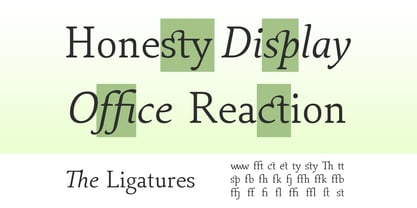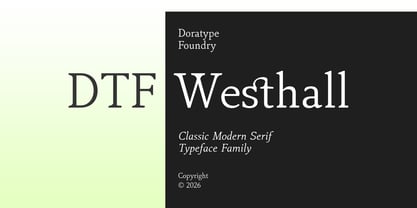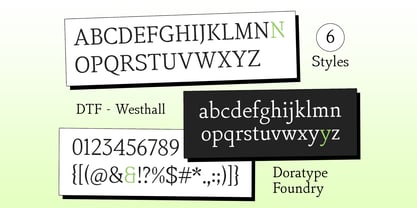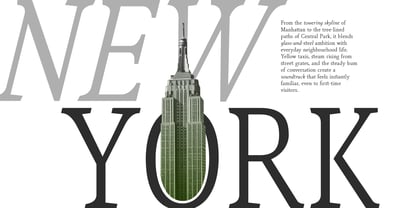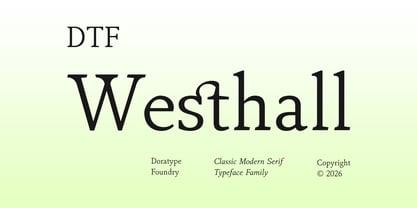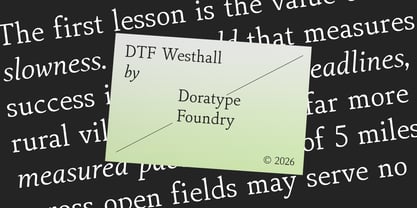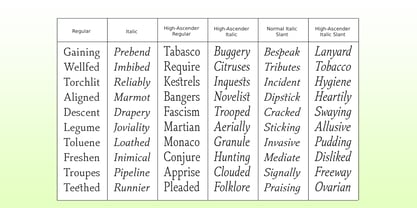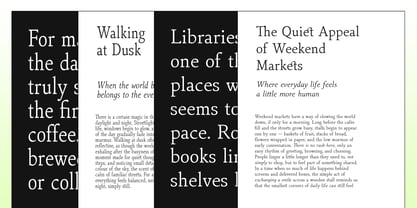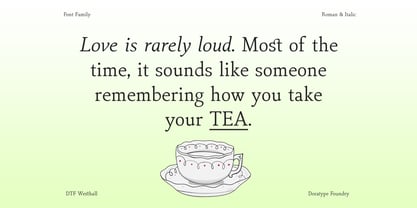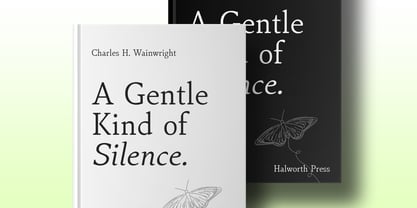
DTF Westhall
La familia tipográfica DTF Westhall fue diseñada por Zahratul Laila y publicada por Dora Typefoundry. DTF Westhall contiene 6 estilos y opciones de paquete familiar. Más información sobre esta familia
DTF Westhall This font features classic serif characters with graceful proportions and a controlled letter structure, strongly inspired by European typographic traditions. The serifs are subtle yet bold, with a moderate contrast between thick and thin stems, creating a sense of authority without feeling stiff. The tall ascenders in some variants reinforce the vertical rhythm and convey an intellectual and literary feel, as if designed for high-quality historical, academic, or editorial texts. The italic and italic slant variants of this font exhibit fluid and expressive movement, with elegant slants and natural-feeling terminal strokes. The combination of stable regular and dynamic italic styles creates broad visual flexibility, suitable for both extended use and typographic emphasis. Overall, this font exudes a sense of maturity, rootedness, and culture—a perfect choice for designs seeking to emphasize authority, tradition, and refined taste.